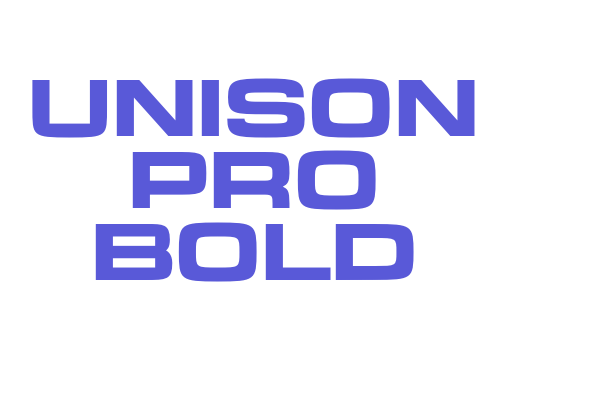
Unison Pro Bold is a sleek and modern sans-serif font designed by TypeJuice. Part of the Unison Pro font family, this bold style exudes confidence and strength. Ideal for headlines, logos, and branding projects, this font is perfect for making a bold statement.
Font Name: Unison Pro Bold
Designer: TypeJuice
Font Family: Unison Pro Bold